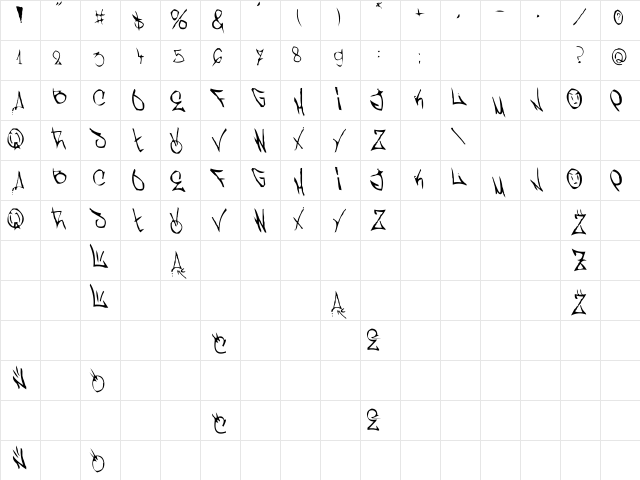
N.A.S Normalny
| Foundry | DJ Gienek |
| Designer | DJ Gienek - NAS - 2001 |
Design Context for N.A.S Typeface
N.A.S is a composed and adaptable typeface that performs quietly and consistently across a wide range of design contexts.